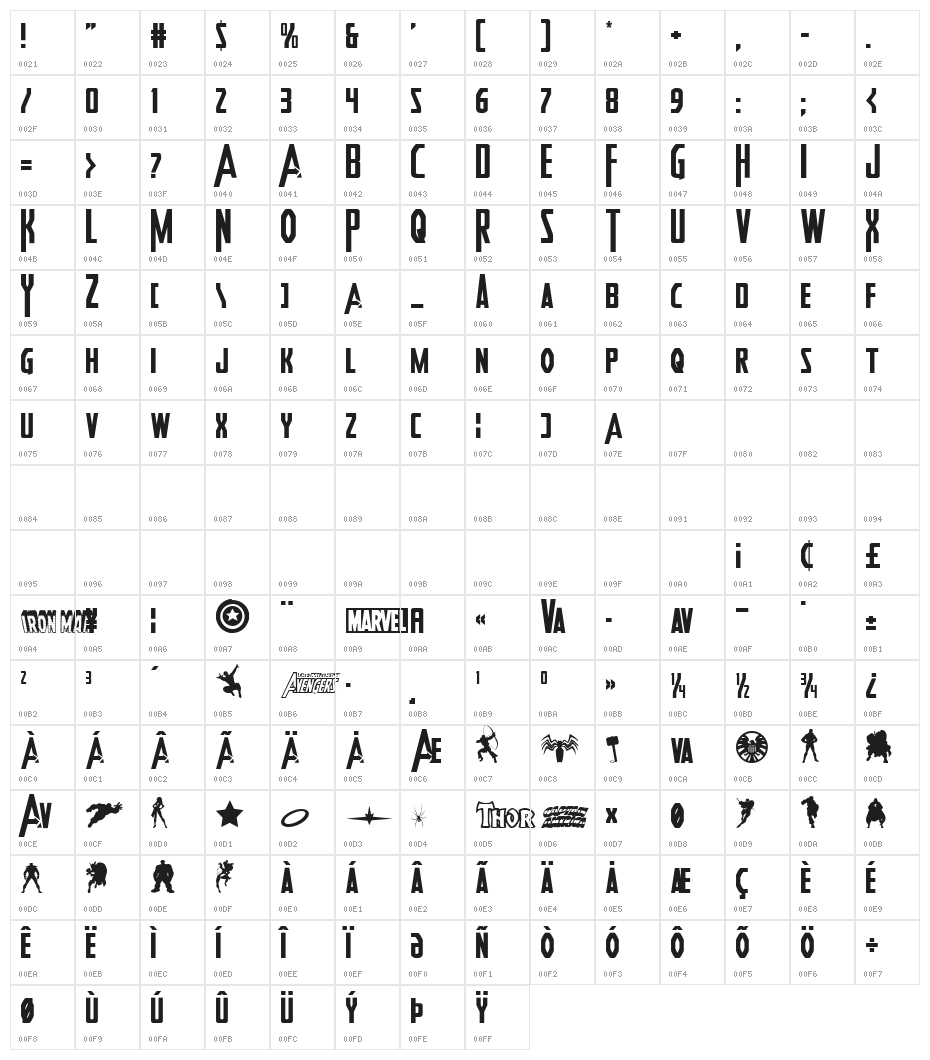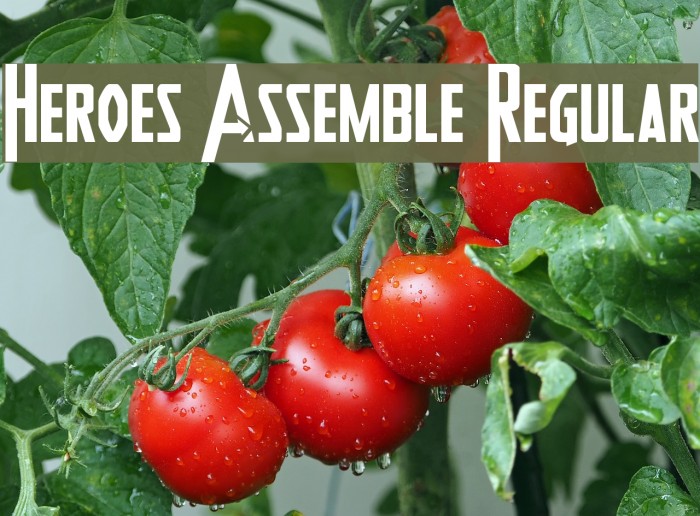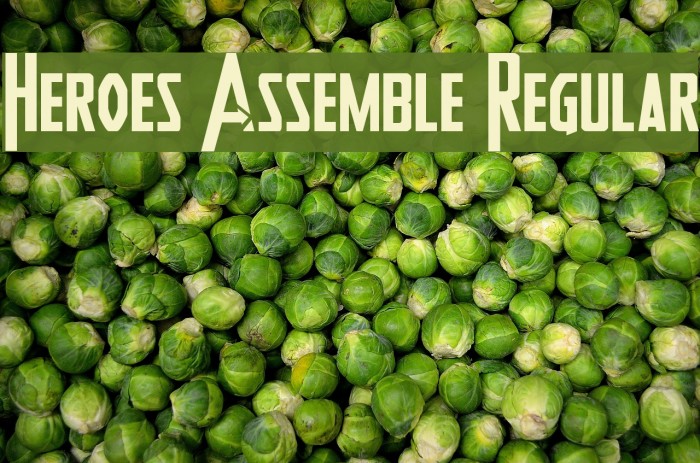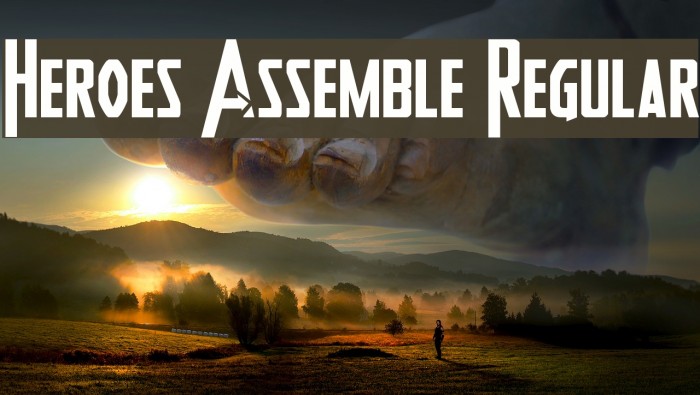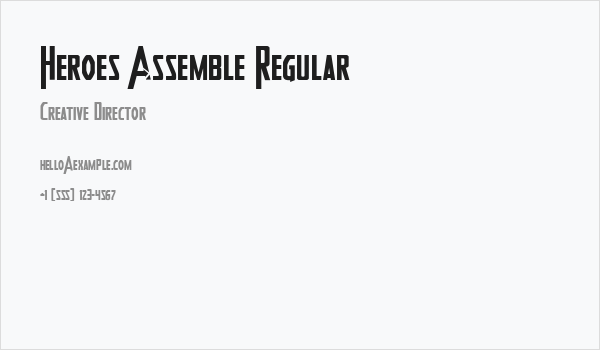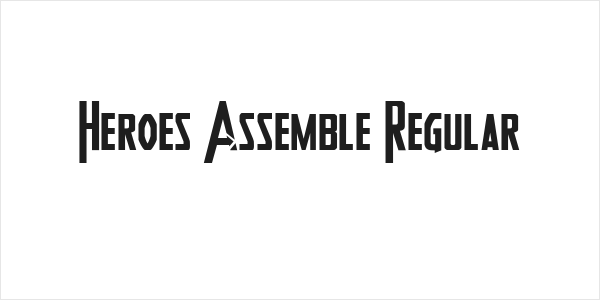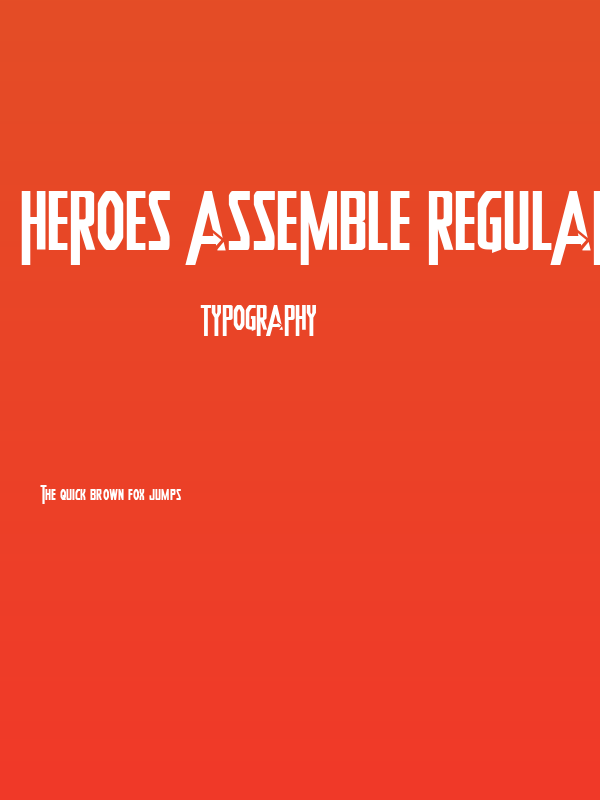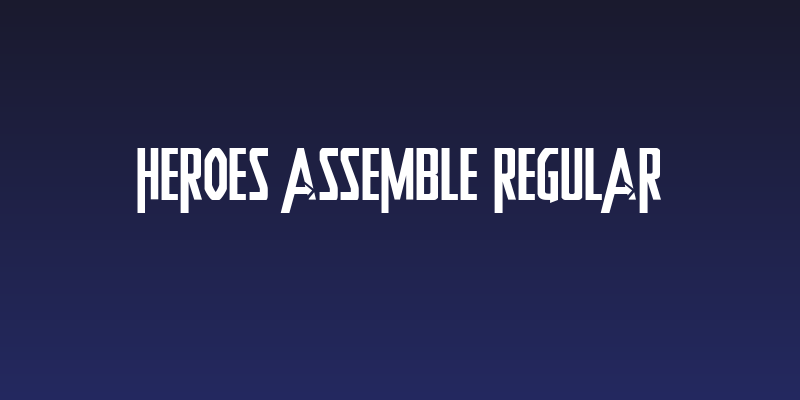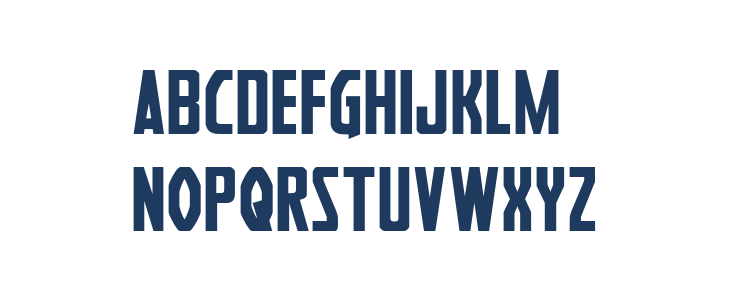
Heroes Assemble Regular Font
Heroes Assemble Regular Description
This font features a bold and dynamic style with strong geometric shapes and sharp angles. The uppercase letters are particularly striking, with a sense of movement and energy that suggests action and heroism. The characters are tightly spaced, enhancing the compact and powerful appearance. The numbers and special characters maintain the same boldness and angularity, ensuring consistency across all glyphs. This font is ideal for projects that require a sense of strength and impact, such as posters, headlines, and branding for action-oriented themes.
| Proposed Projects | Ideal for action-themed posters, headlines, and branding. |